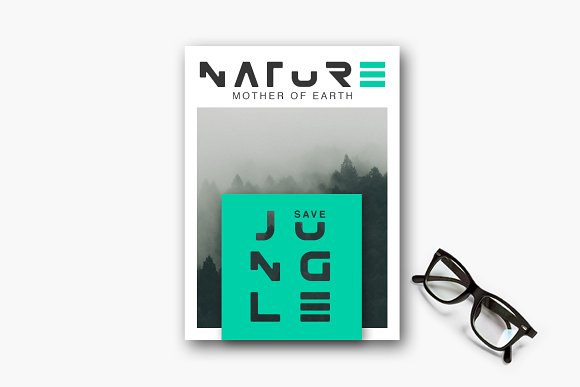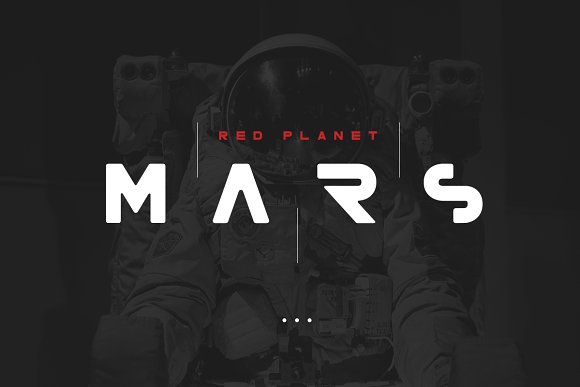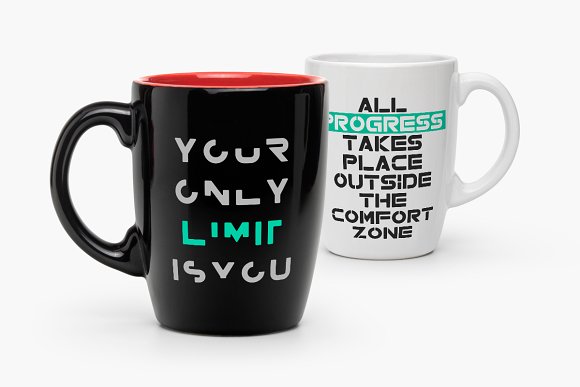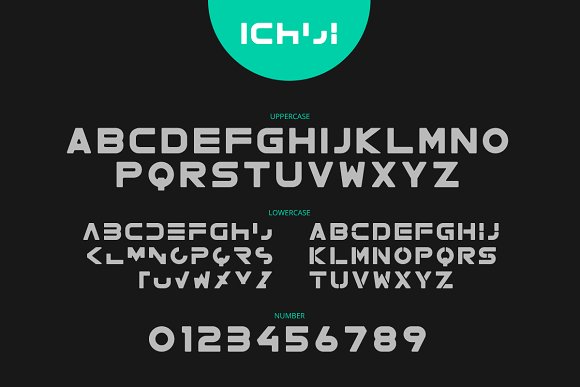
The Perfect Canvas for Your Creative Vision
Have you ever stared at a blank page, waiting for inspiration to strike? For designers, those moments can be the most thrilling – and intimidating. It’s the moment when your entire project comes together, and the right font can make all the difference. That’s why we’re excited to introduce you to the Ichiji Font duo, a clean and modern sans serif created by the talented team at Factory738 foundry.
The Ichiji Font is designed to be versatile, suitable for a wide range of projects, from digital interfaces to print materials. Its clean lines and minimalistic aesthetic make it an excellent choice for designers looking to create a modern and sophisticated look. With the Ichiji Font, you can bring your creative vision to life, and take your designs to the next level.
Whether you’re a seasoned pro or just starting out, the Ichiji Font is a valuable addition to any designer’s toolkit. Its simplicity and versatility make it an excellent choice for any project, and its modern look is sure to impress.
Ichiji Font Key Features
- Size: The font family includes a range of weights, from Light to Extra Bold, allowing for flexibility in design and typography.
- Unique Characteristic: Ichiji Font features a unique blend of modern and traditional Japanese design elements, making it suitable for a variety of applications, from digital signage to editorial content.
- Language Support: Ichiji Font includes comprehensive support for the Japanese language, including Hiragana, Katakana, and Kanji characters.
- Font Pairing: The font family is designed to be highly legible and versatile, making it easy to pair with other fonts and create visually appealing typography.
Designer Review: Ichiji Font
Overall, I think Ichiji Font is a solid choice for designers looking for a clean and modern sans-serif typeface. Here are some of its strengths: ✨
- It’s highly legible, making it perfect for body text or headlines where readability is key.
- The font has a unique, quirky feel to it that sets it apart from more generic sans-serifs.
- The OpenType features, such as contextual alternates and ligatures, add an extra layer of sophistication to the font.
- The font may not be as versatile as some other sans-serifs, and it’s best suited for digital use.
- The italic and bold styles, while still well-designed, don’t quite live up to the standard set by the regular weight.
- The font’s quirks can sometimes be distracting, especially in longer blocks of text.
Overall, I’d give Ichiji Font a solid 4 out of 5 stars. It’s a great choice for designers who want a modern, legible font with a bit of personality. Just be aware of its limitations, and use it wisely.
Tips for Getting the Most Out of Ichiji Font
Here are some tips for getting the most out of Ichiji Font:
- Use Ichiji Font in combination with other fonts to create a unique visual style.
- Consider using Ichiji Font for headings or titles to draw attention to important information.
Ichiji Font is commonly used for:
- Designing logos and branding materials.
- Creating visual identities for businesses and organizations.
- Designing marketing materials, such as brochures and flyers.
Alternatives to Ichiji Font for Designers
Playfair Display is an elegant, high-end serif font suitable for luxury branding, magazine titles, and high-end advertising. It features intricate details and ornate flourishes, making it a great choice for creating a sophisticated and refined atmosphere. Playfair Display is more decorative and ornate compared to Ichiji Font, which is more modern and minimalist.
Merriweather is a classic serif font ideal for body text, especially in academic or professional settings. It features a clean and elegant design, making it easy to read. Merriweather is more traditional and less decorative compared to Ichiji Font, which is more modern and versatile.